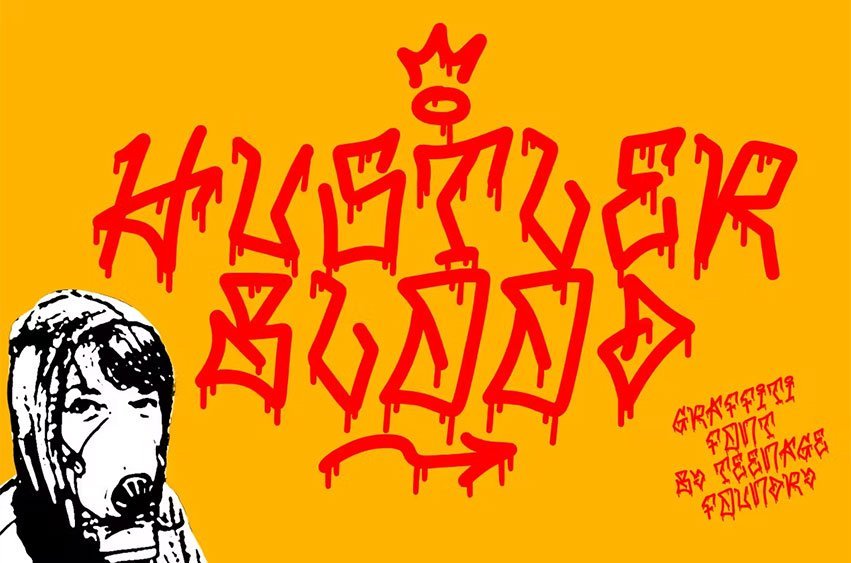
TF Hustler Blood Font Graffiti Font – a unique and exciting design that is sure to add a splash of creativity to your projects! Our font features a monoline style that is complemented by a vibrant splash of paint, giving your designs a unique and eye-catching look.
we’ve also included several alternative that are perfect for supporting the graffiti style. These alternative give you even more flexibility and allow you to create designs that are truly unique and individual.
The monoline style gives the font a clean and modern look, while the splash of paint adds a touch of creativity and spontaneity.